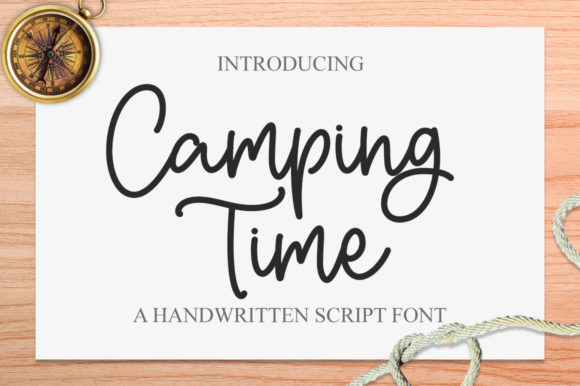
Prepare yourself to embark on a whimsical adventure with Camping Time Font, an enthralling script font that ignites imagination and sparks creativity. This captivating font family, skillfully crafted by Graphix Line Studio, transports you to a realm of enchantment and delight, where playful characters dance along the baseline, beckoning you to join the revelry.
Immerse yourself in the magic of Camping Time Font, where each letter is a stroke of artistry, a testament to the boundless possibilities of imagination. Its enchanting curves and whimsical strokes weave a tapestry of wonder that captivates the eye and captivates the heart. Whether you're a seasoned designer seeking a font that speaks to your creative soul or a novice seeking a touch of enchantment for your projects, Camping Time Font is your gateway to a world of wonder.
Unleash your inner child and let your creativity soar as you explore the endless possibilities of Camping Time Font. Design captivating posters that evoke the joys of childhood, create enchanting invitations that spark curiosity and anticipation, or craft personalized greeting cards that convey heartfelt messages with an extra touch of charm. The playful nature of this font adds a sprinkle of magic to any project, transforming the ordinary into the extraordinary.
Perfect for whimsical logos, cheerful branding, eye-catching social media posts, and captivating website designs, Camping Time Font is your secret weapon to captivate your audience and leave a lasting impression. Its unique personality shines through, adding a touch of magic and intrigue to every design.
Immerse yourself in the world of Camping Time Font and let your imagination run wild. Let the playful characters guide you on a journey of creativity, where every design becomes a masterpiece and every project a testament to your boundless imagination. Embrace the enchanting charm of this script font and unlock the door to a world where creativity knows no bounds.